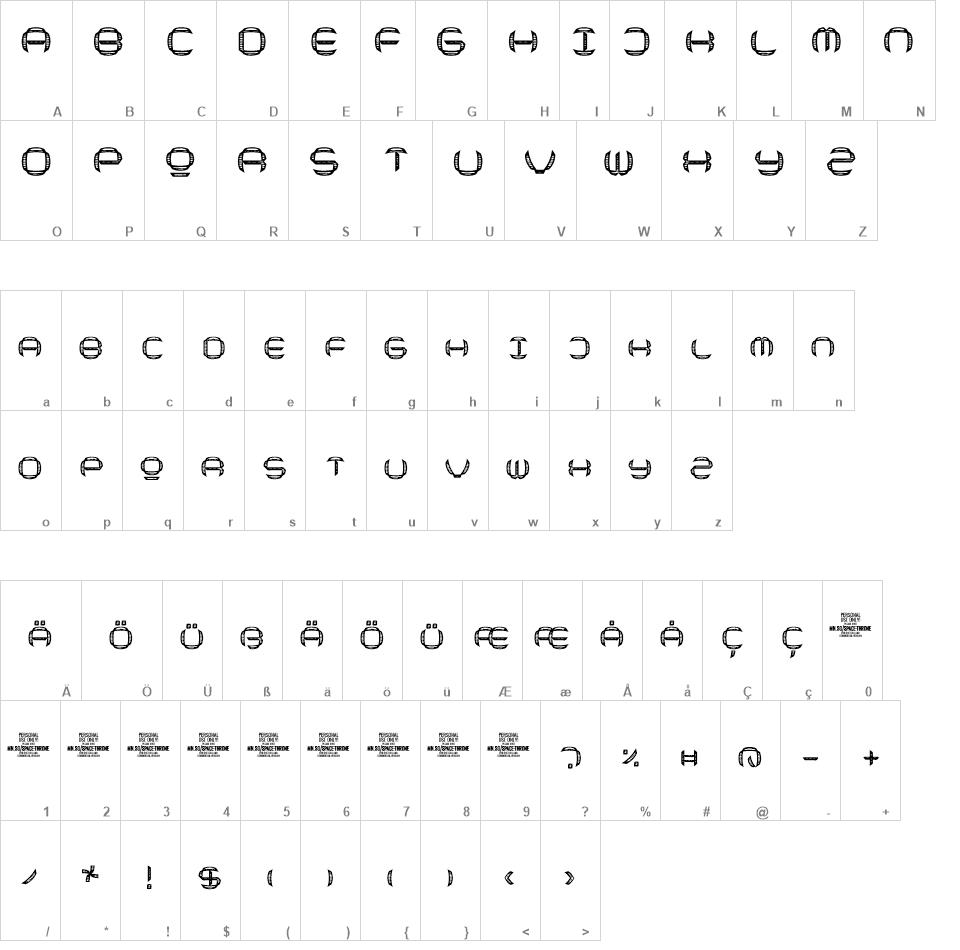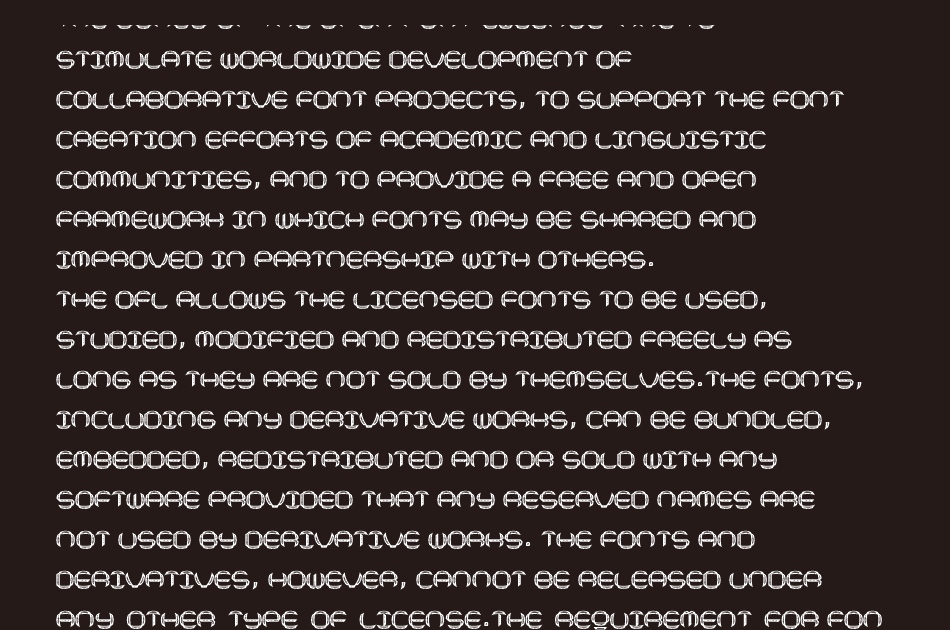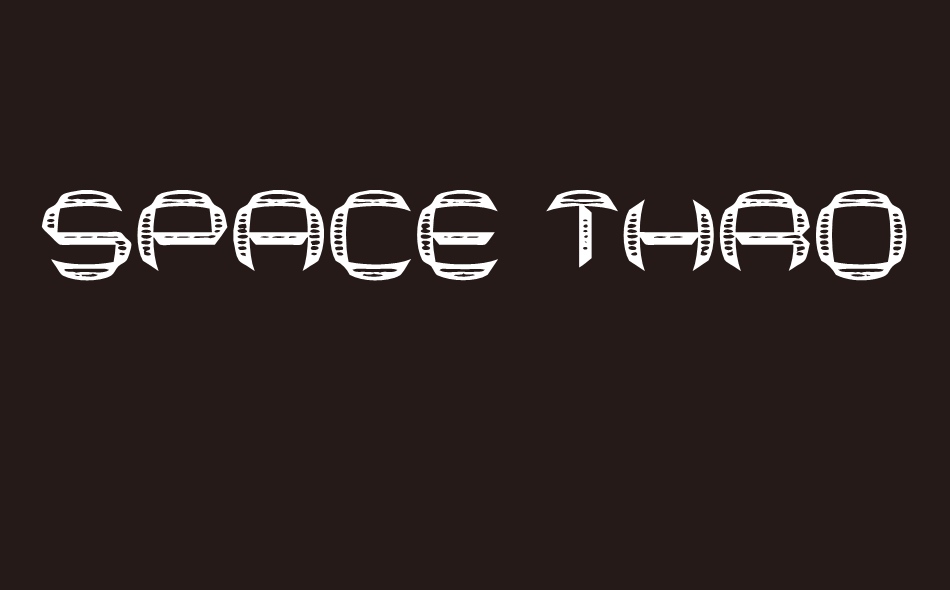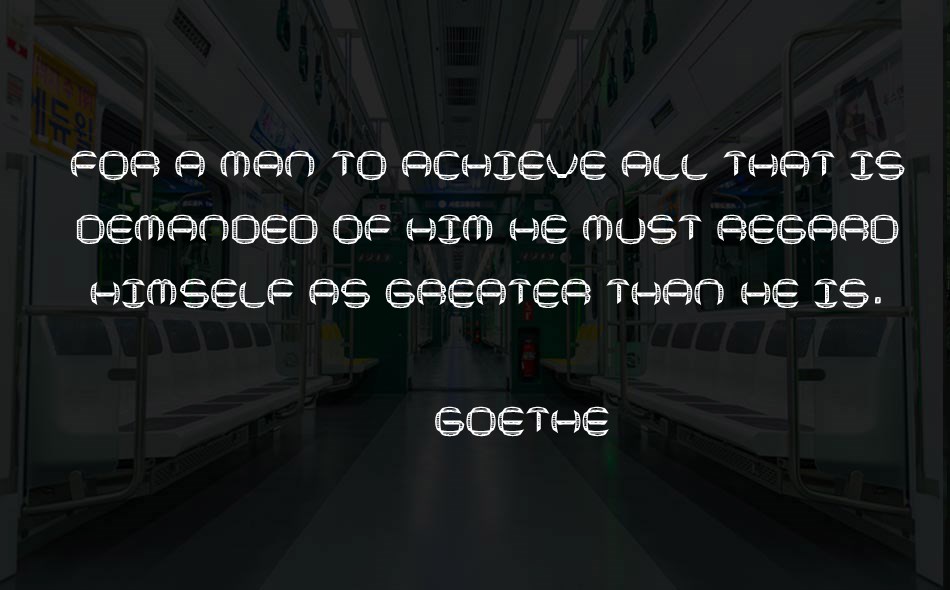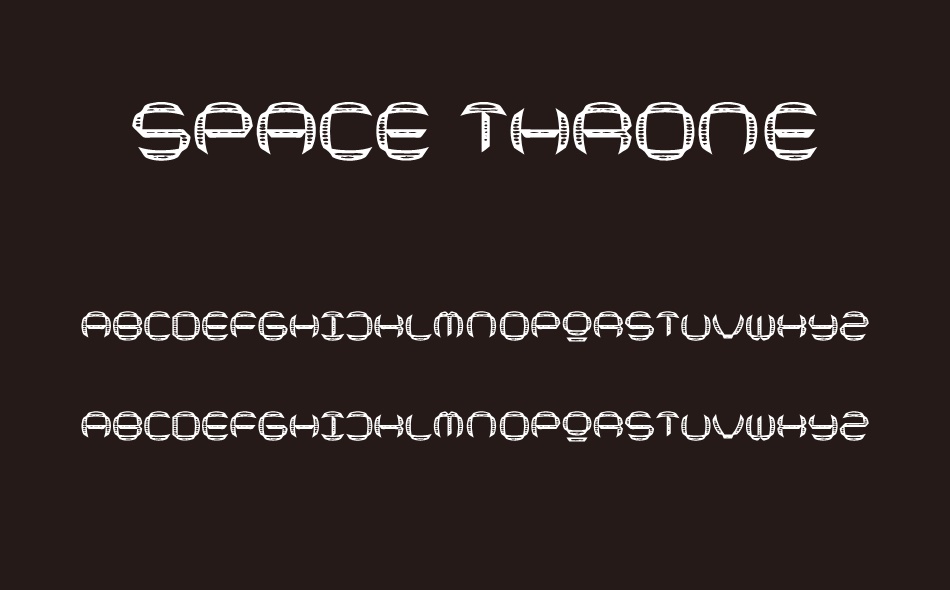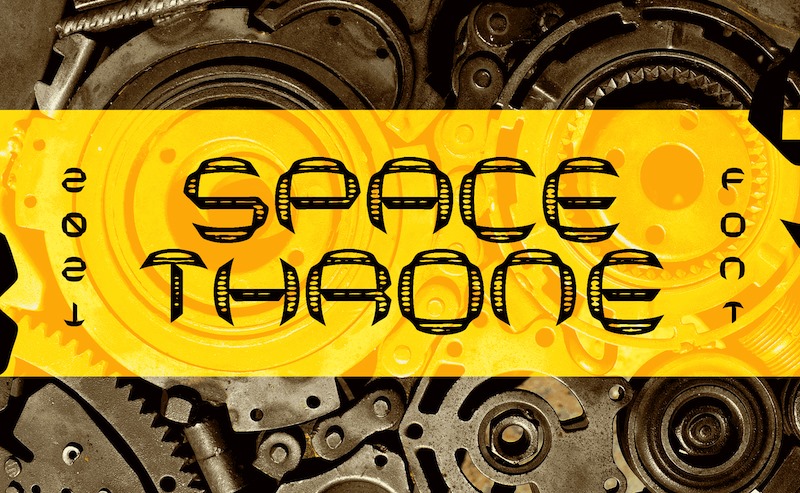
Space Throne font
Space Throne is a technological sci-fi typeface drawn and created by Mans Greback between 2018 and 2021.
A rough digital typeface, this futuristic lettering has a high-tech look with a touch of apocalyptic decay.
Space Throne is a LCD cyberpunk typeface family consisting of four styles: In addition to the eroded Regular style, it has the clean weights Thin, Medium and Bold.